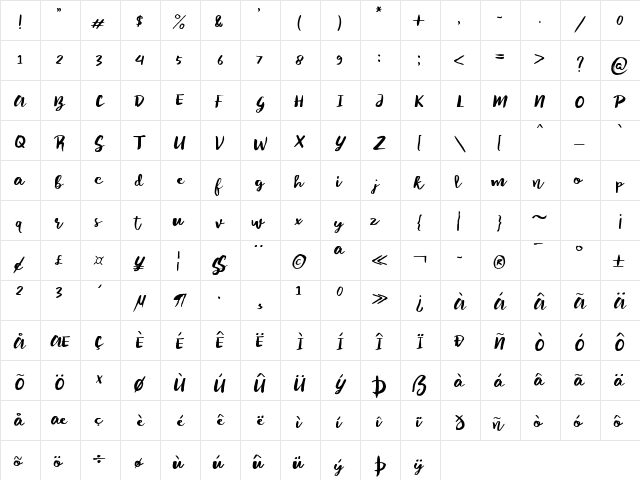
Sayur Koool Regular
| Designer | Lettersiro 2018 |
Design Context for Sayur Koool Typeface
Sayur Koool is a composed and adaptable typeface that performs quietly and consistently across a wide range of design contexts.